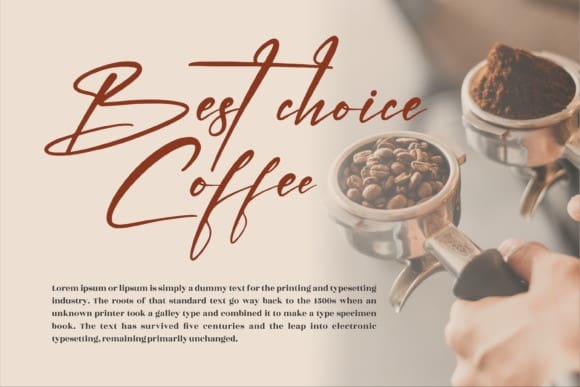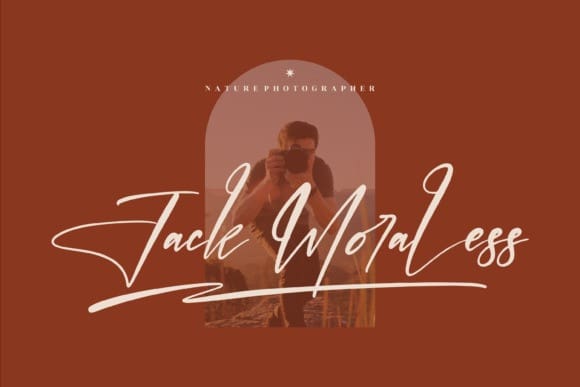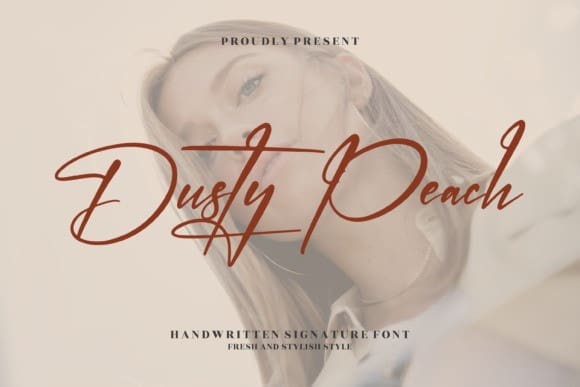
Dusty Peach Font
Dusty Peach Font is a beautiful and light handwritten font with a unique feel and a stunning impact. It will add a luxury spark to any design project that you wish to create! This font is PUA encoded which means you can access all of the amazing glyphs and ligatures with ease!